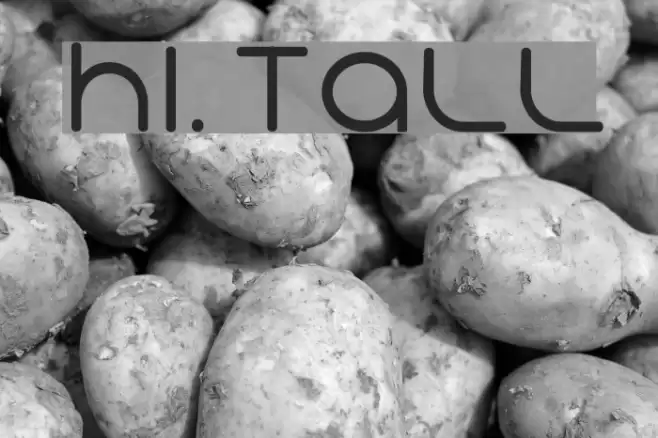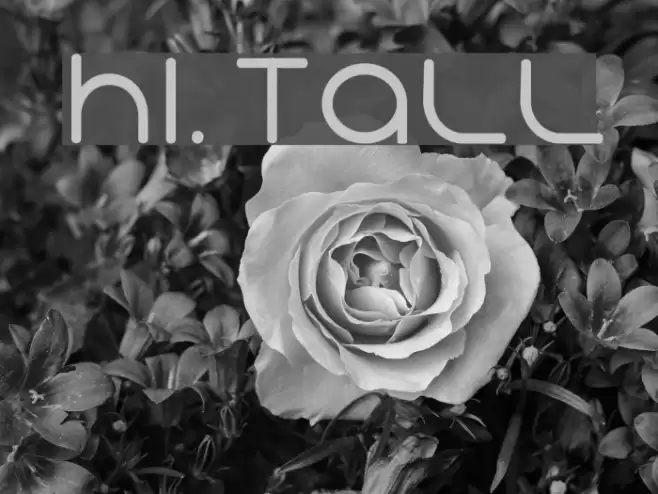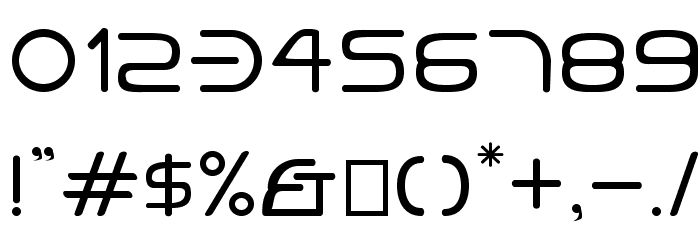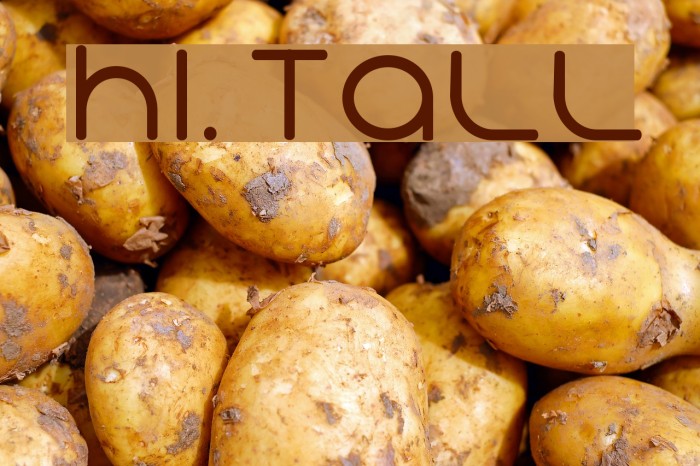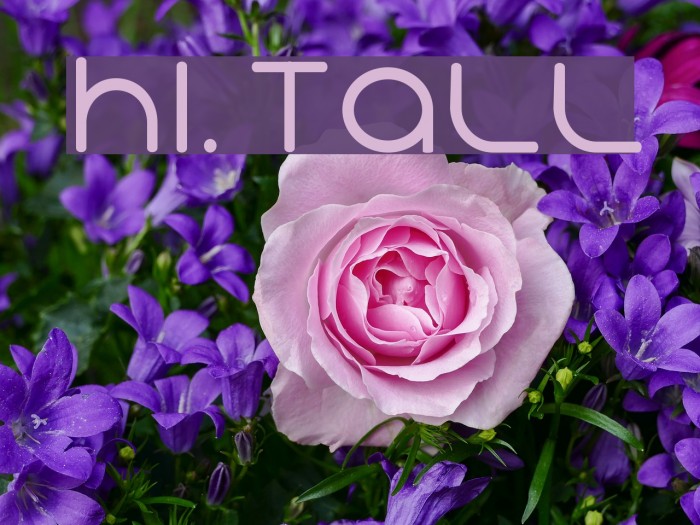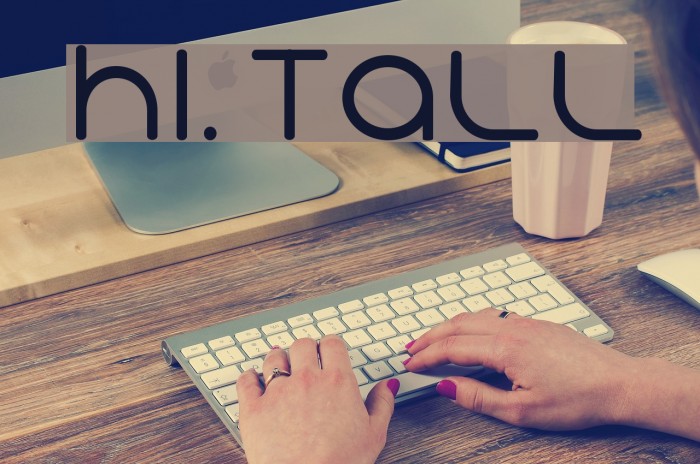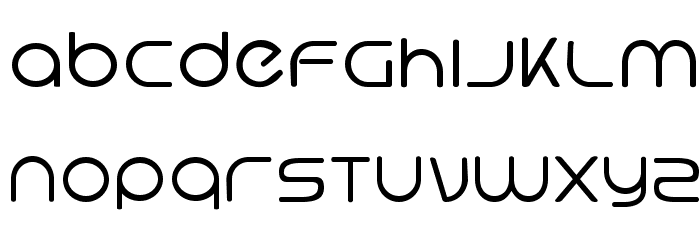
Hi. Tall Font
Hi. Tall Description
This font features a sleek, modern design with rounded edges and a geometric structure. The characters are evenly spaced, providing a clean and organized appearance. The uppercase and lowercase letters maintain a consistent style, with smooth curves and a uniform thickness throughout. The numerals and special characters complement the alphabet with their minimalist and contemporary look, making the font versatile for various design applications.
A modern, geometric font with rounded edges and consistent thickness from Uncategorized fonts.
- Proposed Projects: Ideal for tech branding, modern web design, and minimalist posters.
- Use Case: Logos, Headlines, Web design